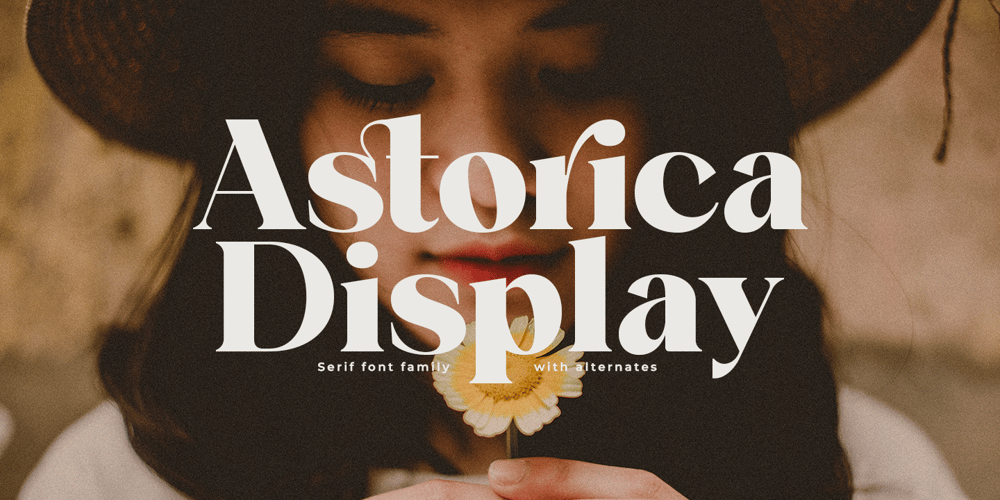
Astorica Display Font Family was designed by Mur Zani and published by Zane Studio. Astorica Display contains 6 styles and family package options. Elegant, graceful and timeless. Astorica is a versatile font family with timeless classic appeal, has alternatives & ligatures, multilingual support, (And we think this is our best work so far!)Each letter has been hand-drawn and made with great care. Weight variations provide a variety of options that will help you find the best typographic character for your project. All 6 weights are perfect for big screen use and high impact headlines. The binding and style alternatives available offer a number of different options that give your logo or business card a unique look.FEATURE6 loads of AstoricaHigh contrast41 ligatures per capital letter weight and30 Ligatures per lower case weight10 alternate glyphs per weightComprehensive language supportStay sweet, Sweetest Thing